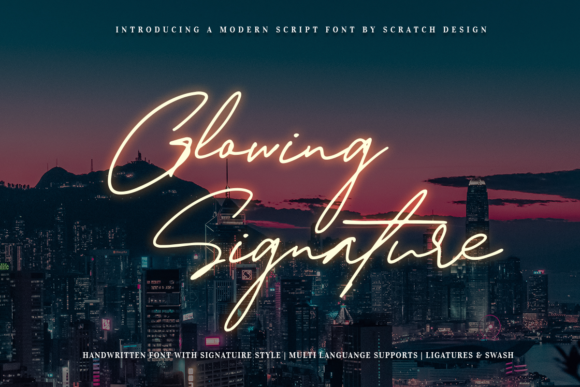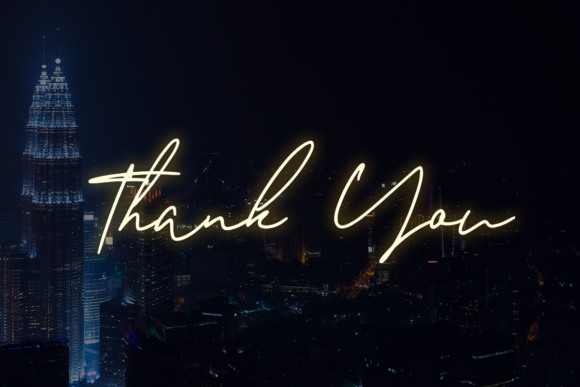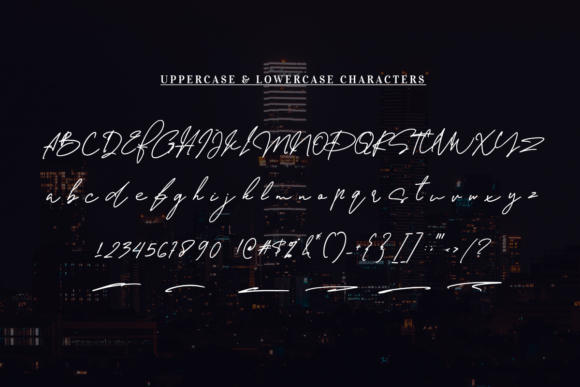
About Glowing Signature Font
Glowing Signature is a light and elegant handwritten font. It looks beautiful on a variety of designs requiring a personalized style, such as wedding invitations, thank you cards, weddings, greeting cards, logos and so on.